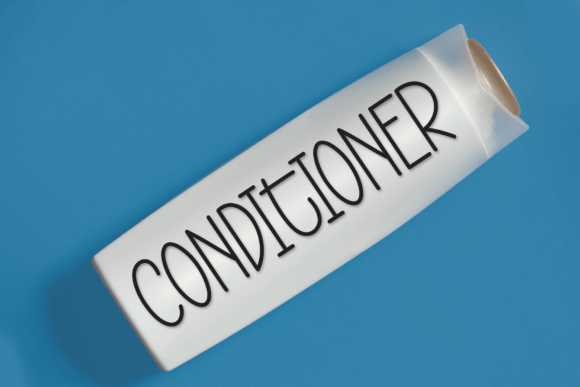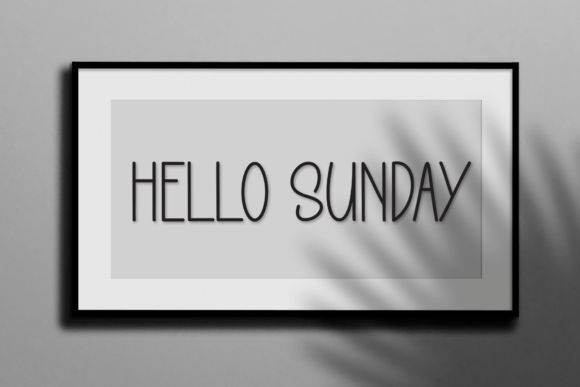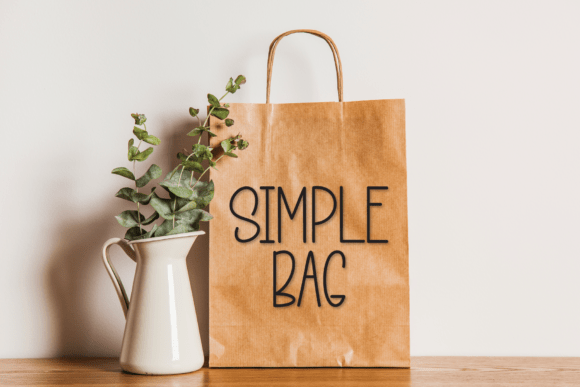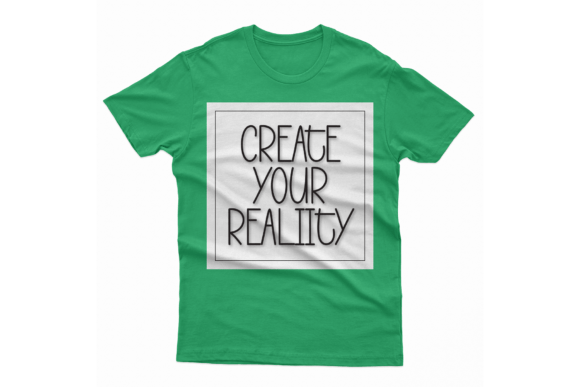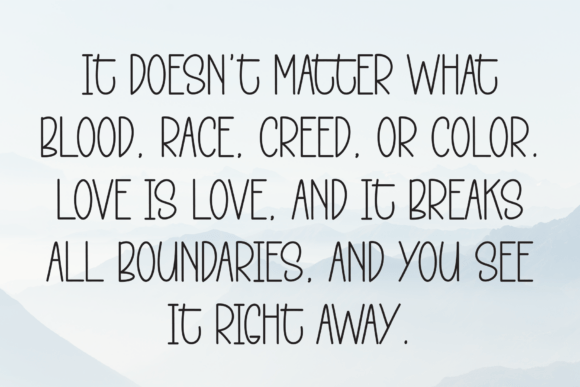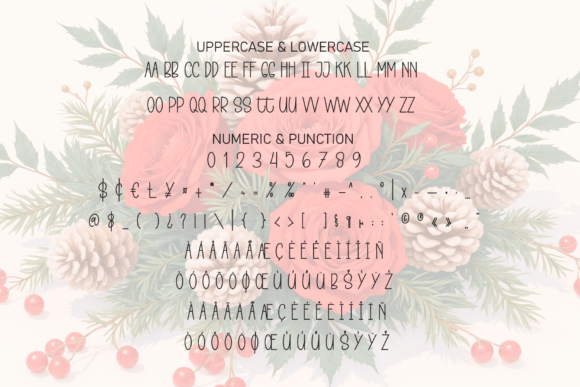
Introduction to Santa Bouquet Font
Journey into the captivating realm of the Alluring Handwritten Typeface, a scintillating centerpiece of effervescent passion and entrancing charm.
This typeface isnโt a quirky concoction but a harmonious meeting of whimsical mystique and playful hints, embodying the infinite magnetism of unbound charm Perfectly suited for crafting mesmerizing wedding invitations or imaginative greeting cards, the spirit of this font depicts the finesse of an artisanโs prowess.